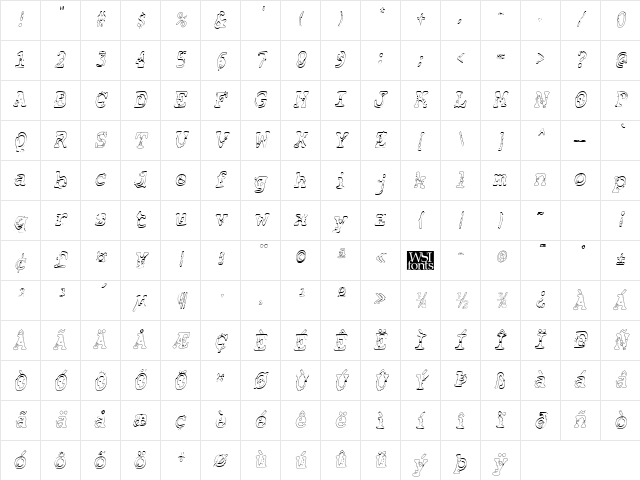
BasicGrungeHollowCond Italic
Design Context for BasicGrungeHollowCond
BasicGrungeHollowCond embraces imperfection - its rough, textured character adds raw authenticity to designs that want to feel lived-in and unconventional. The slanted form adds forward momentum and visual energy.
A strong fit for alternative music projects, graffiti-adjacent design, and anything that deliberately resists polish.
Font Pairing: Pair with a clean, minimal sans to create contrast between raw and refined - the tension is part of the effect.
Pro Tip: Use BasicGrungeHollowCond at larger sizes where the texture and irregularity of each letterform can be clearly seen - it loses its character at small sizes.